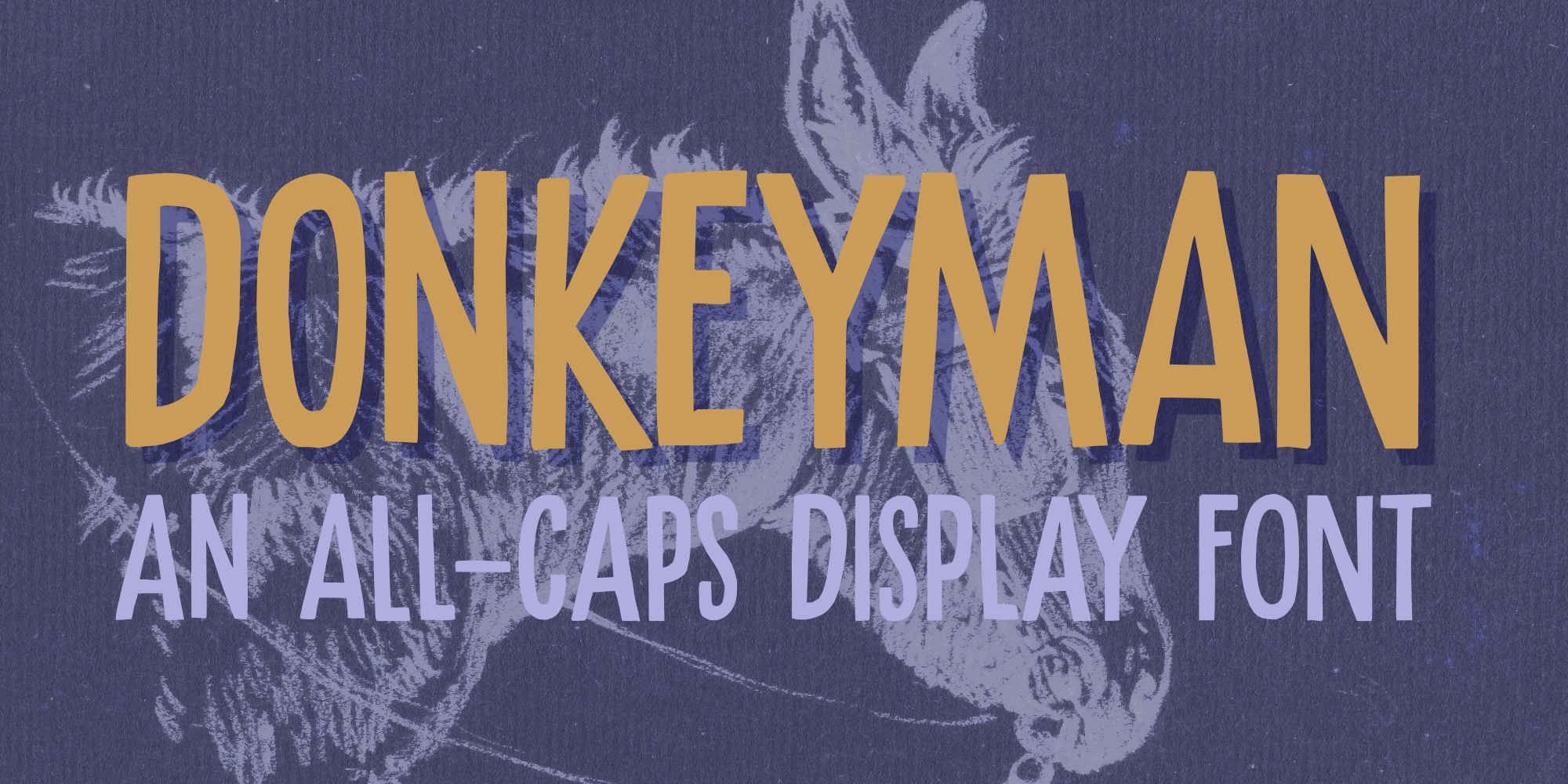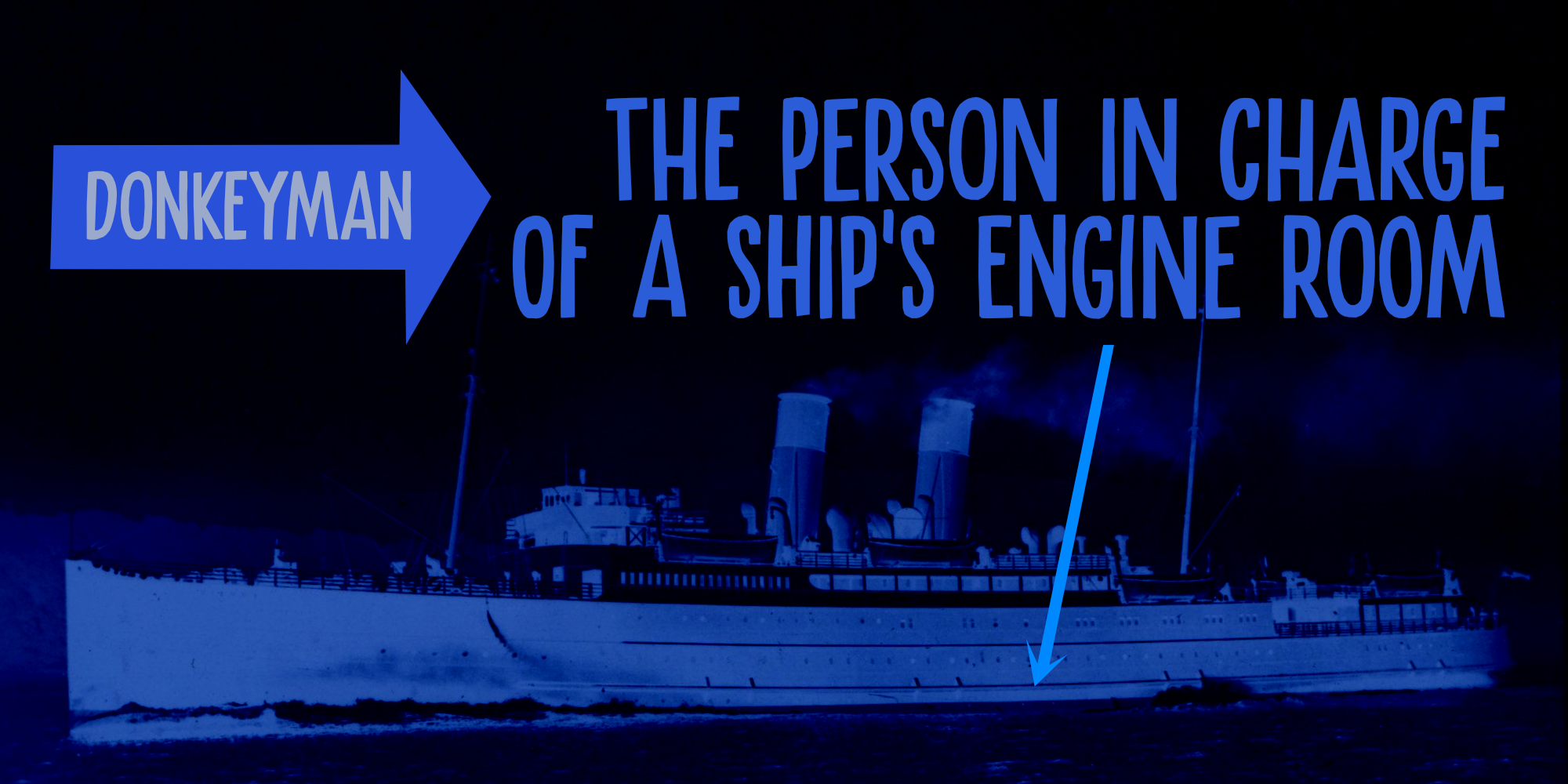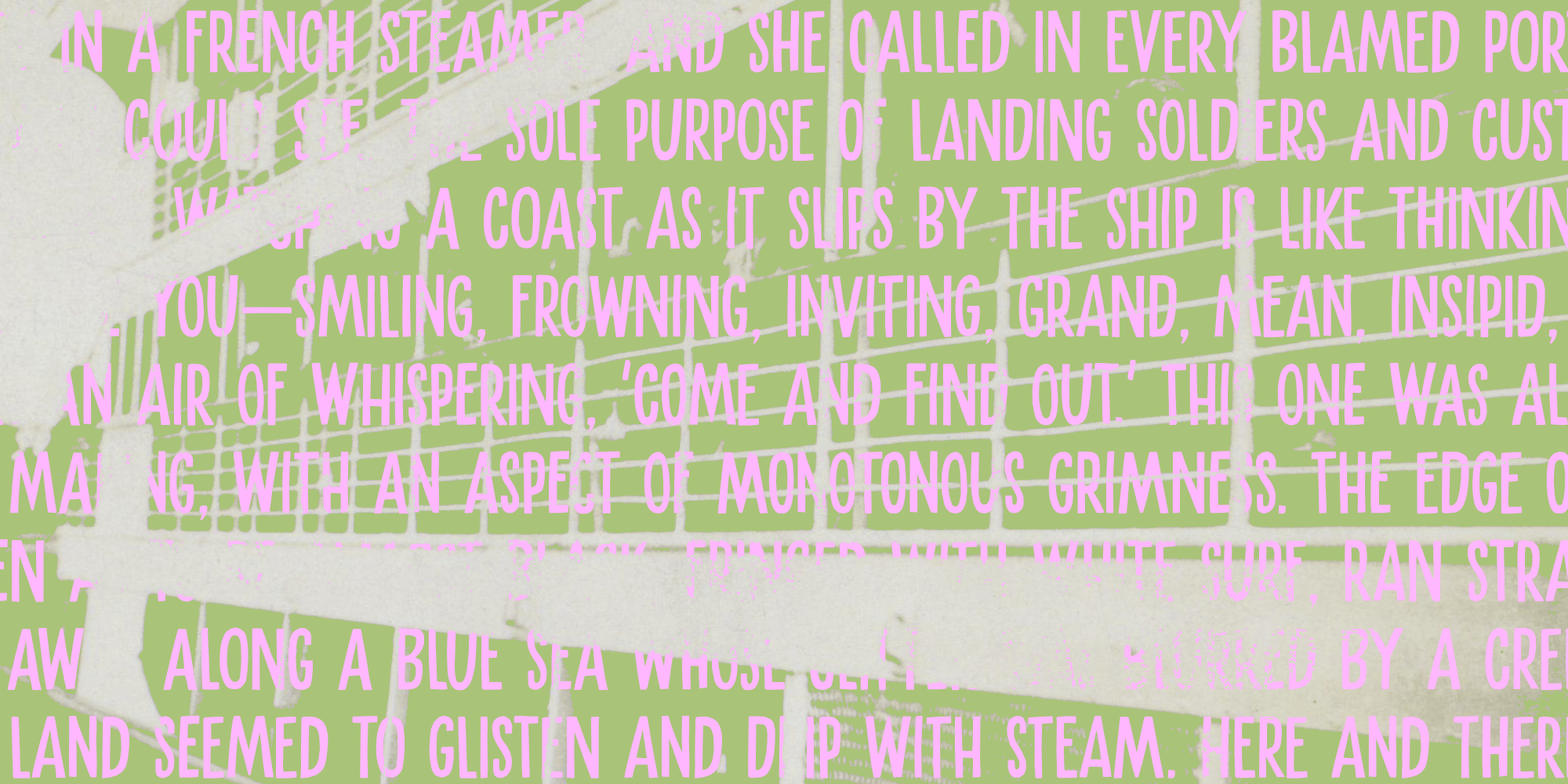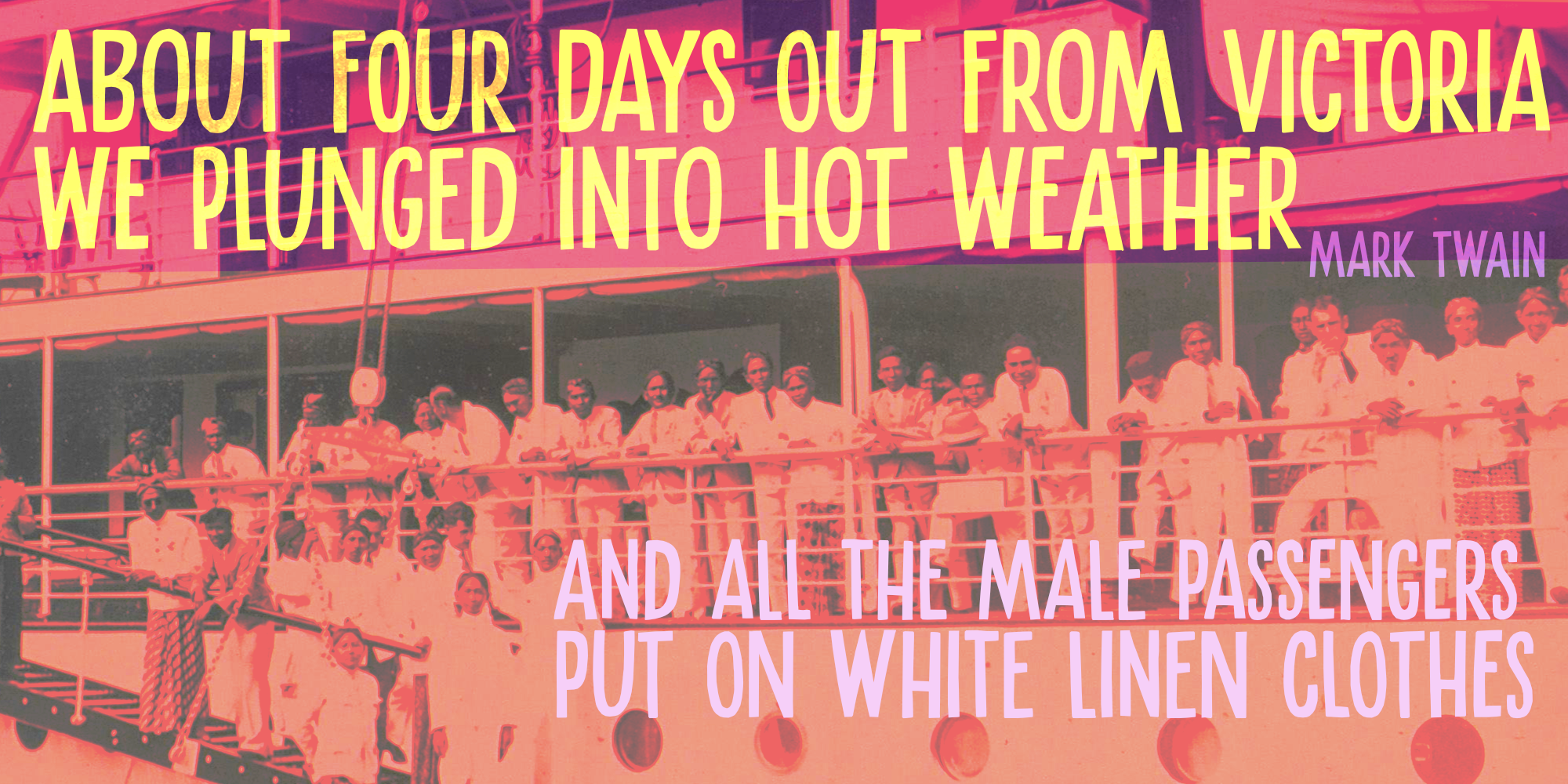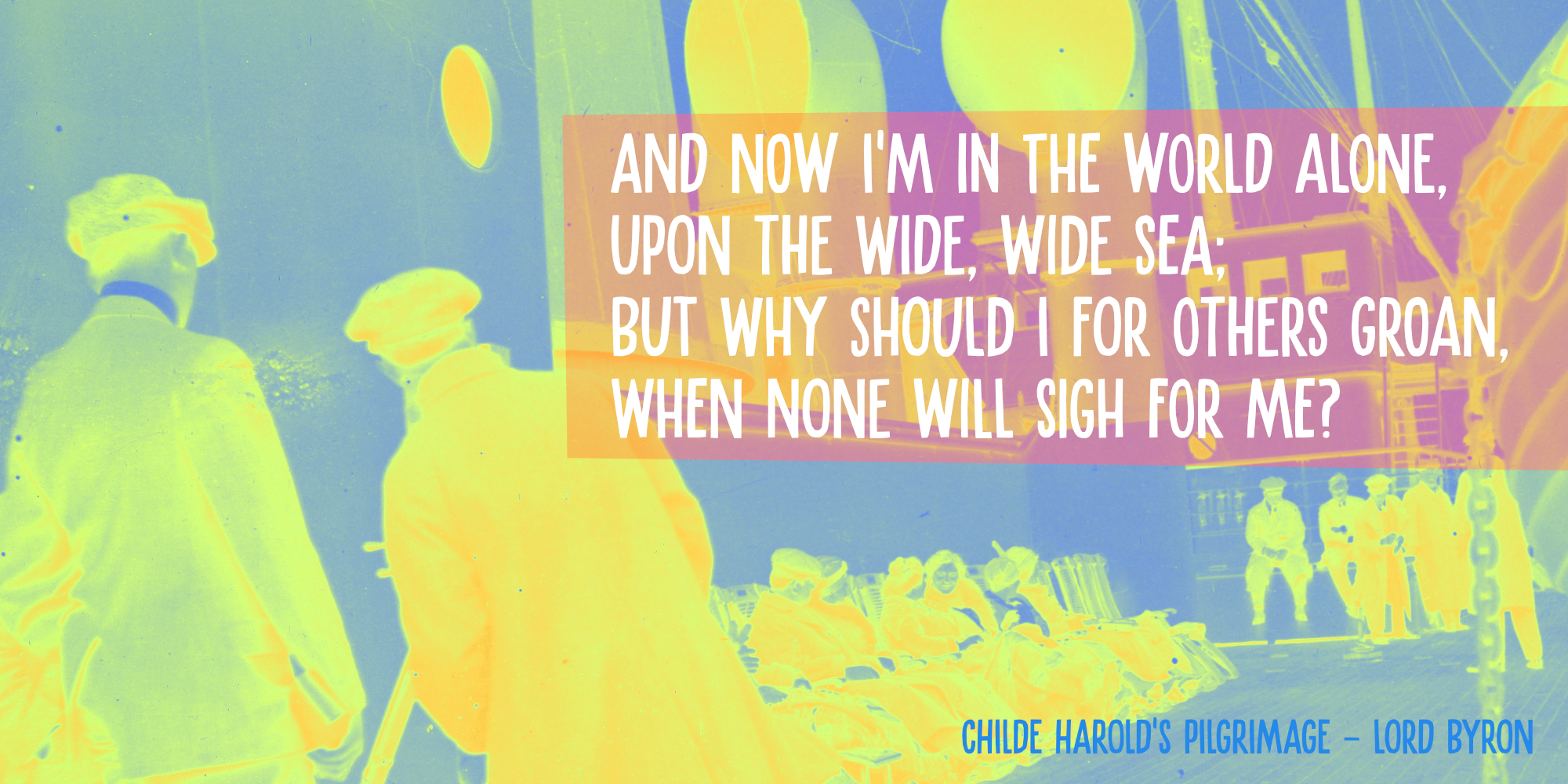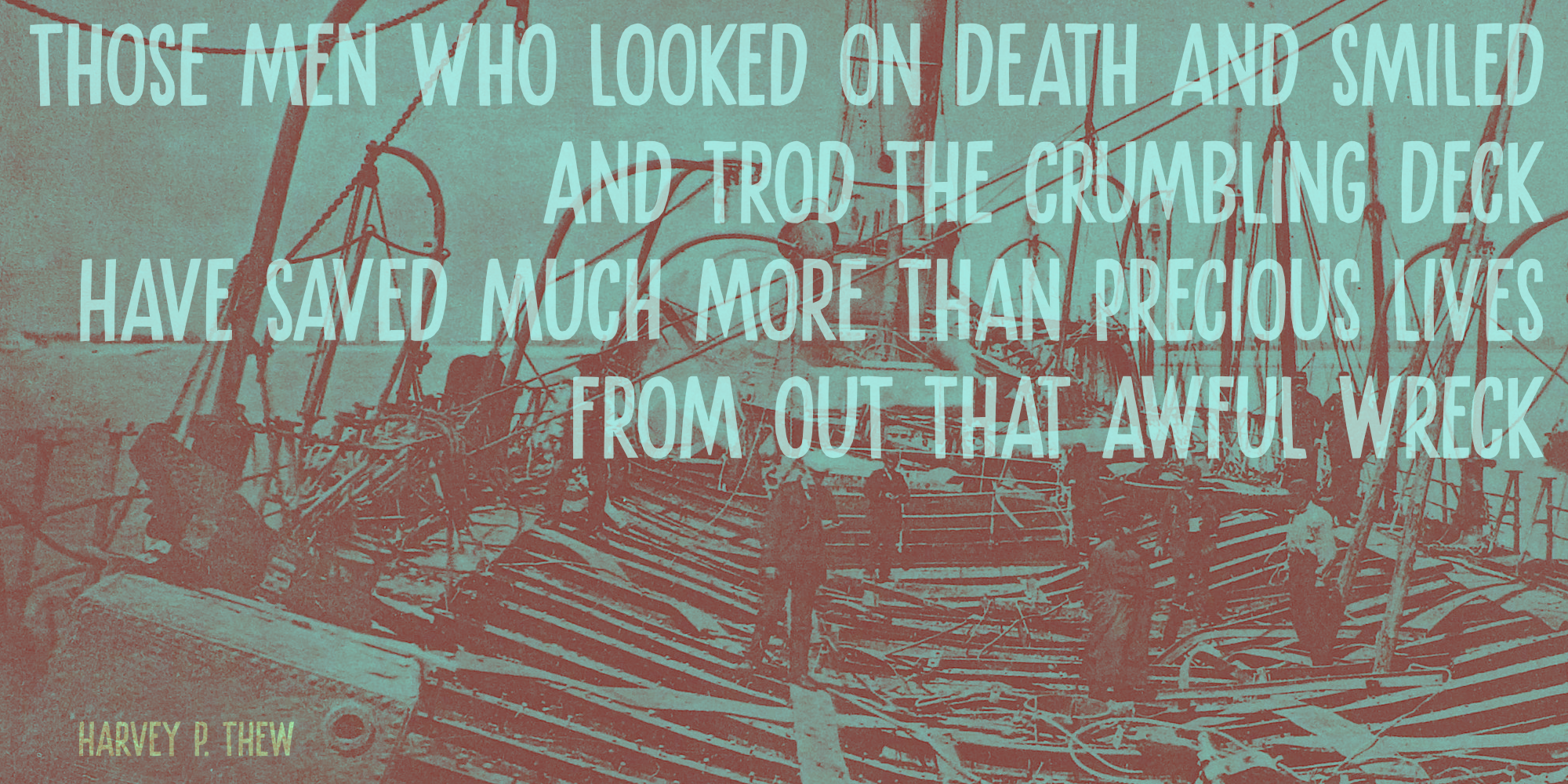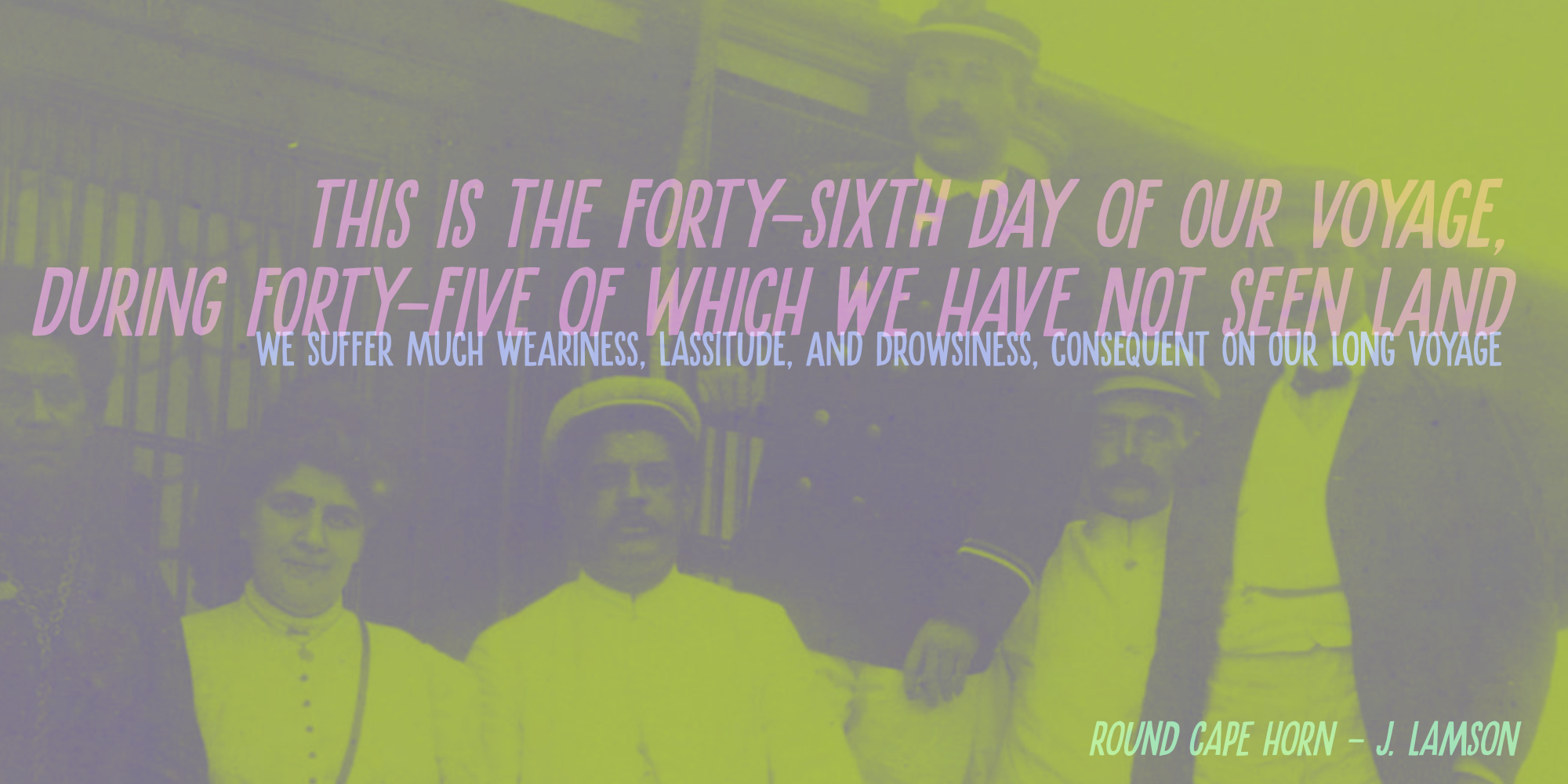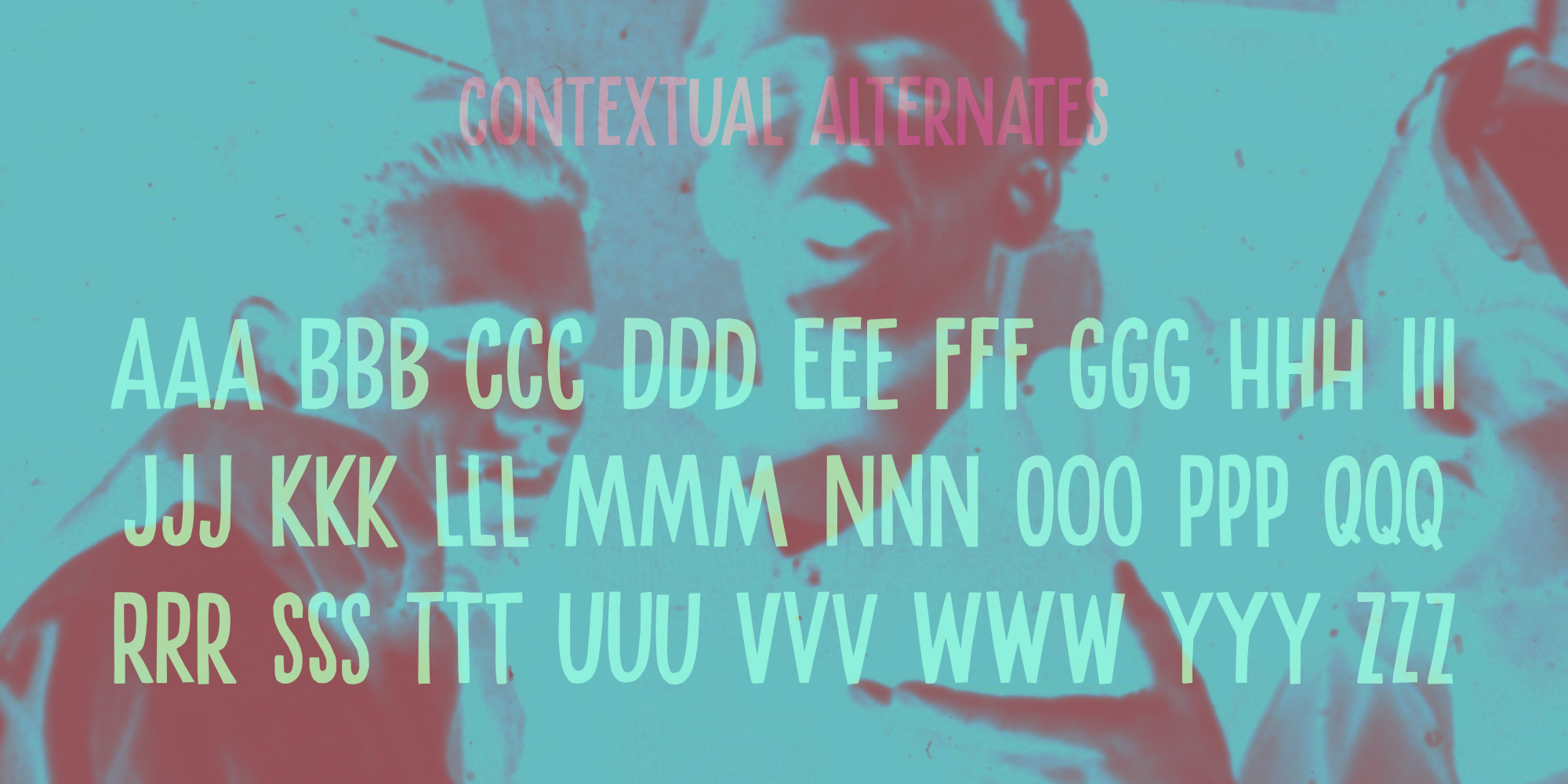
Donkeyman (2 fonts)
Donkeyman font is quite a useful font: it is a handmade, all-caps font that comes with two sets of alternate glyphs. The alternates cycle as you type, creating a ‘random’ effect. Comes with extensive language support, including Sami and Vietnamese.